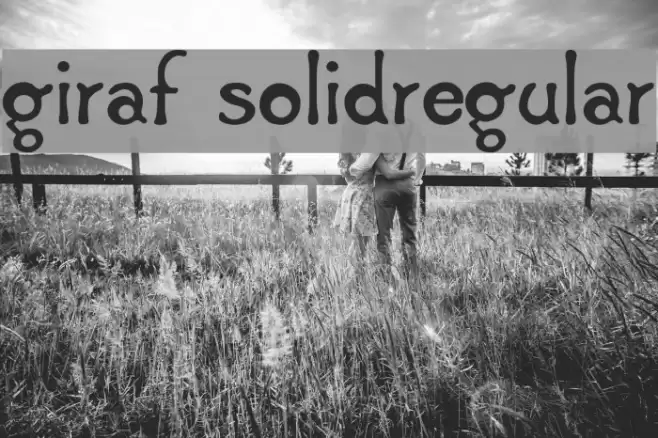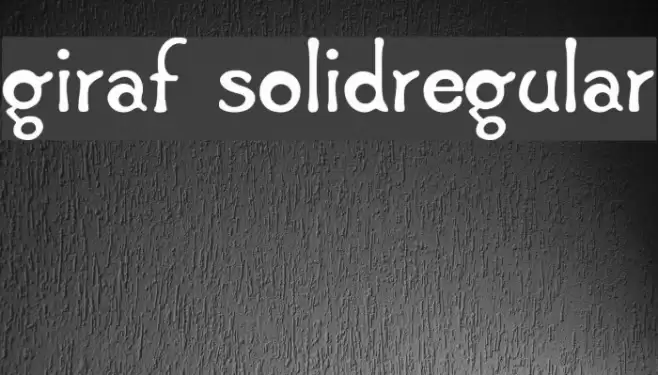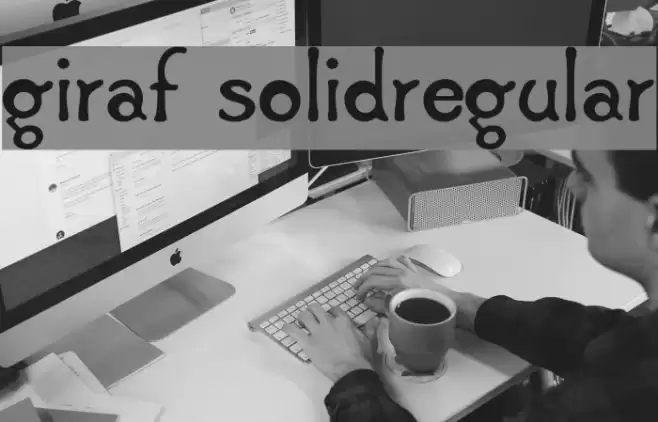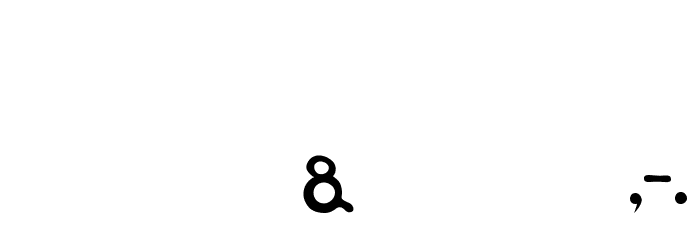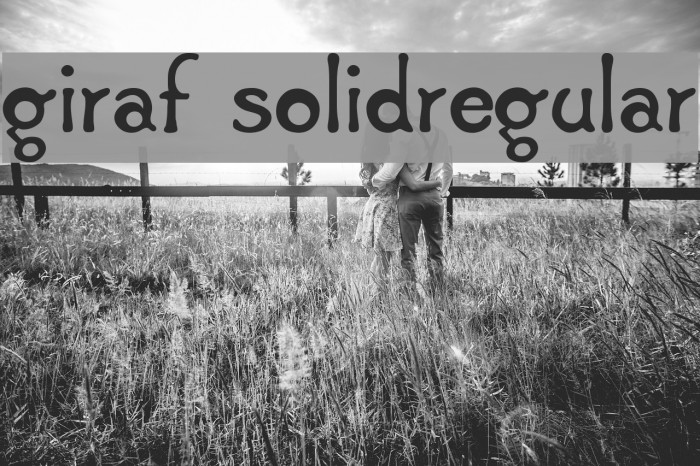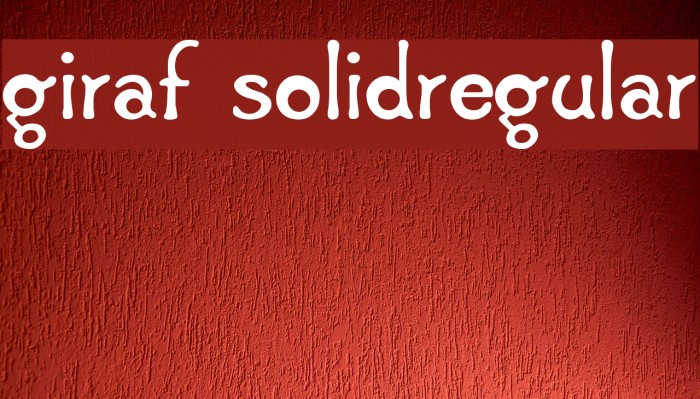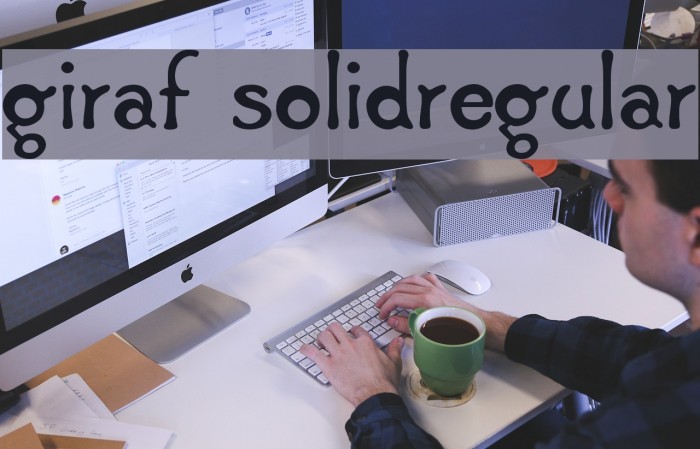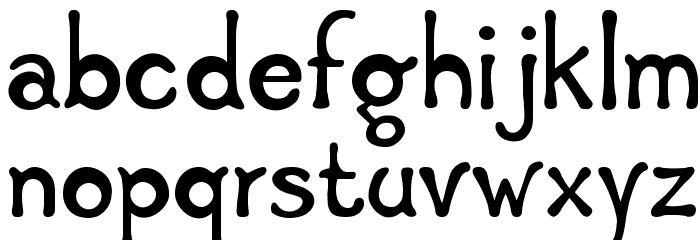
Giraf SolidRegular Font
Giraf SolidRegular Description
This playful and whimsical font features rounded, bubbly characters that convey a sense of fun and creativity. The letters are bold and slightly irregular, giving them a hand-drawn appearance. The font maintains a consistent stroke width, providing a uniform look across all characters. Its unique style is characterized by the exaggerated curves and loops, particularly noticeable in letters like 'g' and 'y'. The font's informal and friendly nature makes it ideal for projects that aim to be approachable and engaging.
A playful, rounded font with a hand-drawn, whimsical style from Uncategorized fonts.
- Proposed Projects: Ideal for children's books, playful branding, casual invitations, and creative posters.
- Overall Style: Playful
- Use Case: Logos, Posters, Children's books